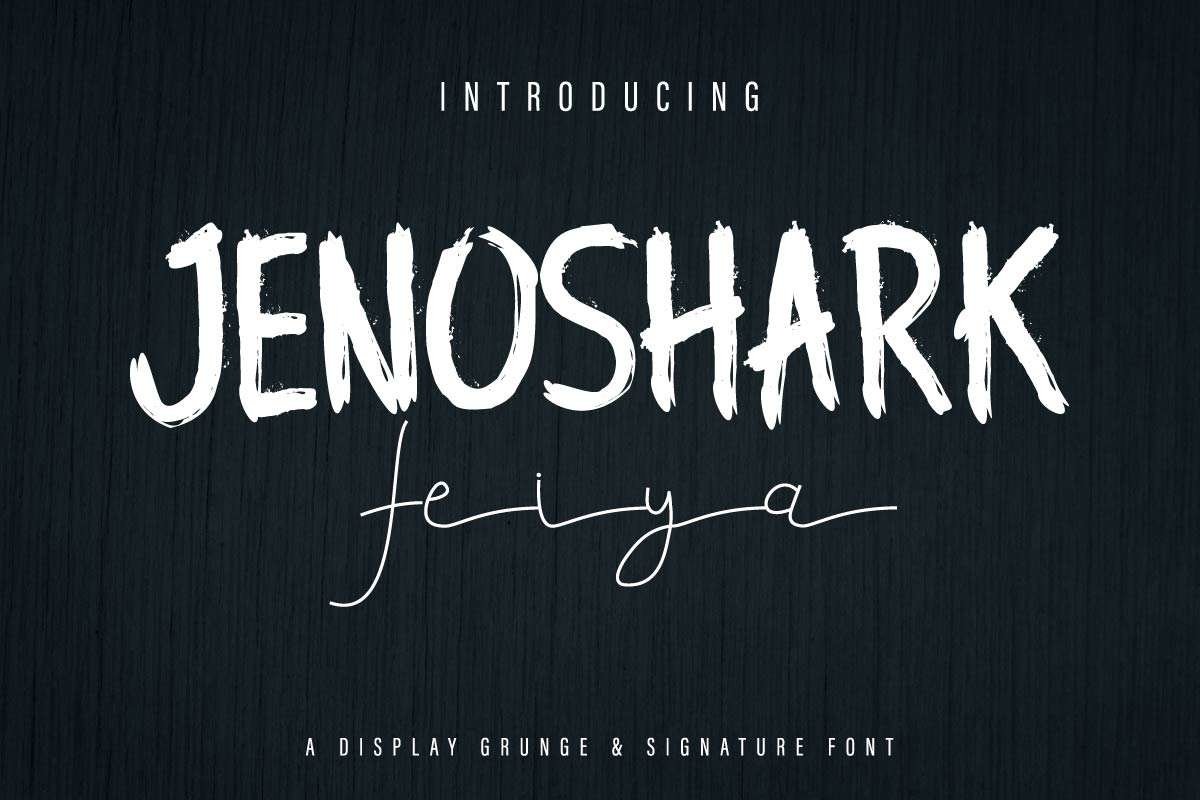
Jenoshark Feiya
Edric Studio in 2020, Presenting to you : Jenoshark Feiya Font Duo
This is a font duo with two styles : Handwriting signature and Display Grunge.This typeface was handcrafted by two typeface artists : Saila and Suci. Made in Bandung and Garut – West Java, Indonesia.On the zip package you will get: